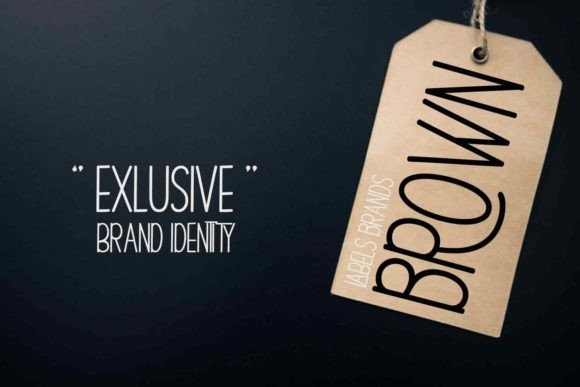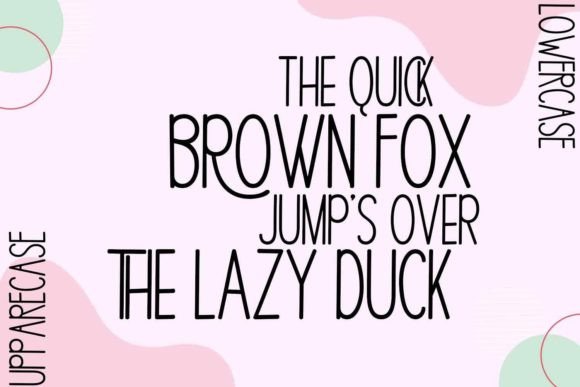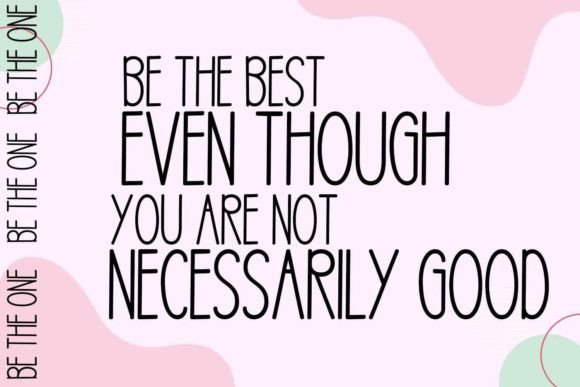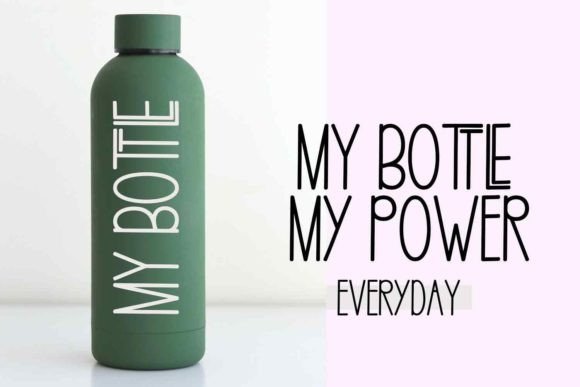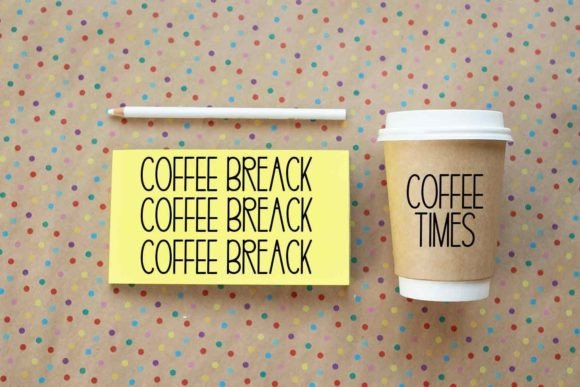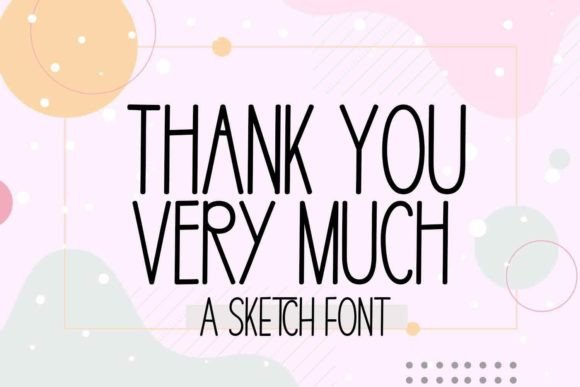
Unleashing the Beauty of Handwritten Letters
Remember the feeling of receiving a handwritten letter from a loved one? The joy of turning the page, the excitement of reading those personal, cursive words? That’s the magic of handwritten communication. And what if you could capture that same essence in your designs? Enter the Bright Garden Font, a beautiful, classic handwritten font that adds a touch of warmth and personality to any project.
Whether you’re a designer working on a logo, a greeting card, or a book print, the Bright Garden Font is an invaluable asset. Its unique blend of classic and modern elements makes it perfect for creating eye-catching and memorable designs. By incorporating this font into your work, you’ll be able to convey emotions and tell stories in a way that’s both authentic and engaging.
Bright Garden Font Key Features
- Font Family: Bright Garden Font is a modern sans-serif typeface designed for readability and versatility.
- Font Size: The font family includes multiple weights and styles, ranging from 100 to 900, with corresponding font sizes to match.
- Resolution: Designed for high-resolution displays, the font looks crisp and clear at resolutions up to 300 DPI.
- Unique Characteristics: Bright Garden Font features a clean, geometric design with subtle rounded edges, making it perfect for digital and print applications.
- Language Support: The font family supports over 100 languages, including Latin, Cyrillic, and Greek alphabets, making it a great choice for global branding and marketing materials.
Bright Garden Font Review
I’ve had the chance to play around with the Bright Garden Font, and here’s my honest take.
- Unique Character: The font’s quirky, hand-painted style adds a touch of whimsy to any design project.
- Legibility: Despite its ornate appearance, the font is surprisingly easy to read, even at smaller sizes.
- Expressiveness: Bright Garden Font excels at conveying a sense of playfulness and friendliness, making it perfect for children’s books, greeting cards, and other projects where a lighthearted tone is required.
- Limited Versatility: While the font is great for certain projects, it may not be the best choice for more formal or professional designs.
- Lack of Consistency: The font’s irregularities can sometimes make it difficult to achieve a cohesive look, especially when working with large blocks of text.
Overall, I think Bright Garden Font is a fun and expressive font that’s perfect for the right projects. While it may have its limitations, its unique character and legibility make it a great addition to any designer’s toolkit.
Bright Garden Font Practical Application Guide
Tips for Getting the Most Out of Bright Garden Font
To get the most out of the Bright Garden font, use it for headings and titles to add a touch of elegance and sophistication. You can also use it for body text to create a cohesive and visually appealing design.
The Bright Garden font is ideal for:
- Editorial and design projects
- Any design project that requires a touch of elegance and sophistication